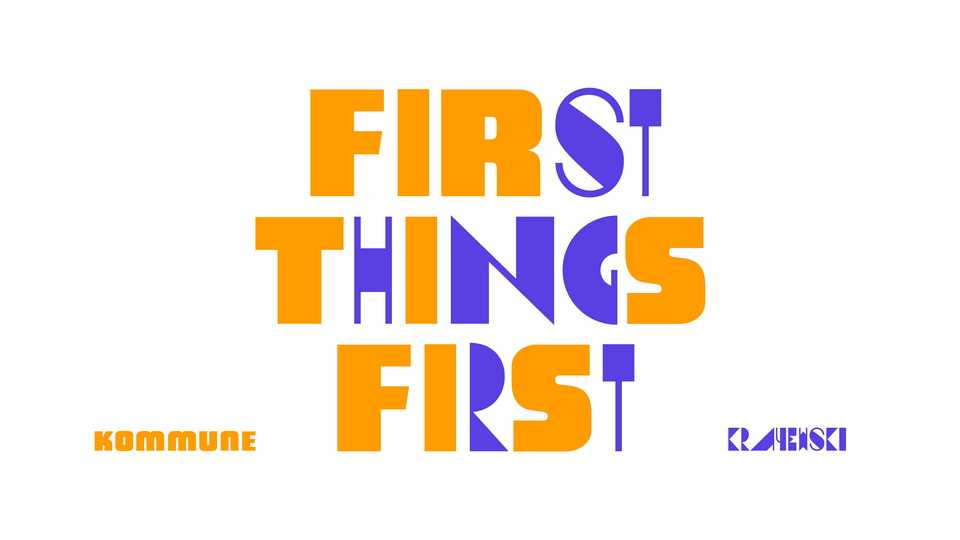
Download Krayewski font, a display typeface based on lettering by Andrzej Krajewski (Andre De Krayewski) for his book entitled “Moje Okładki” (“My Covers”)
Designer: Maciej Połczyński